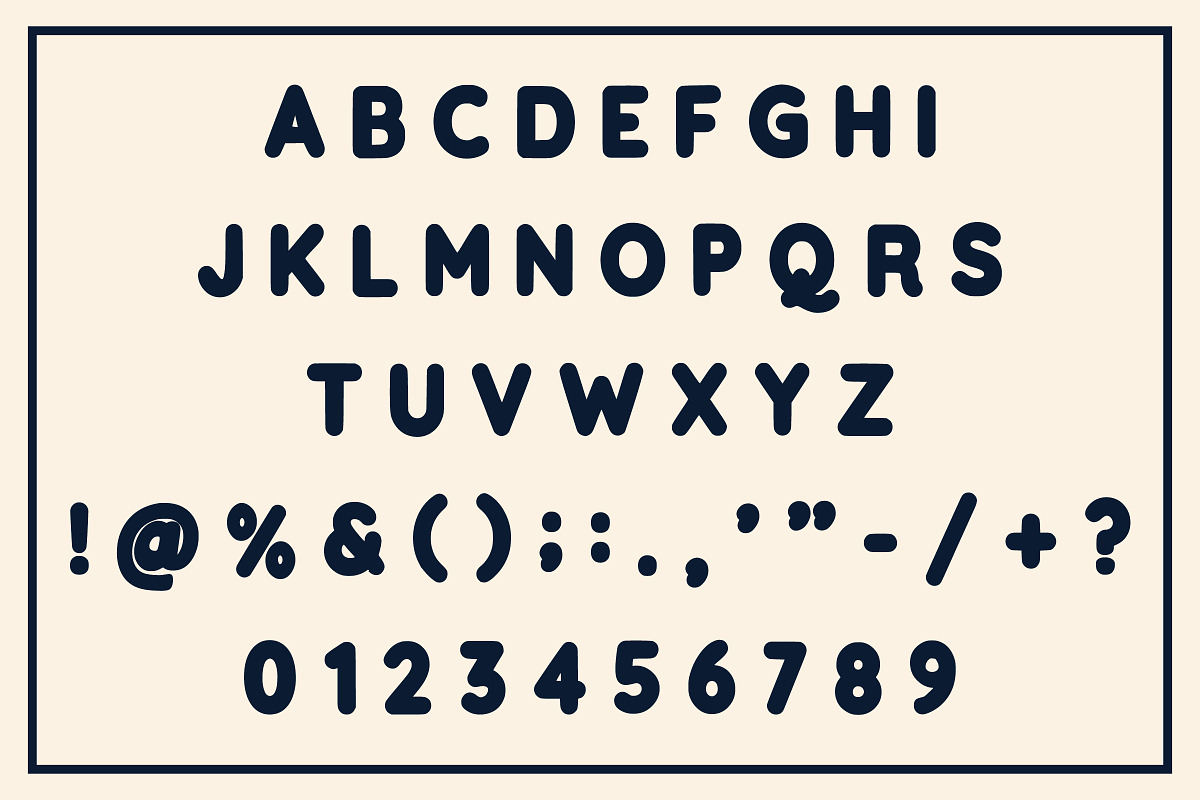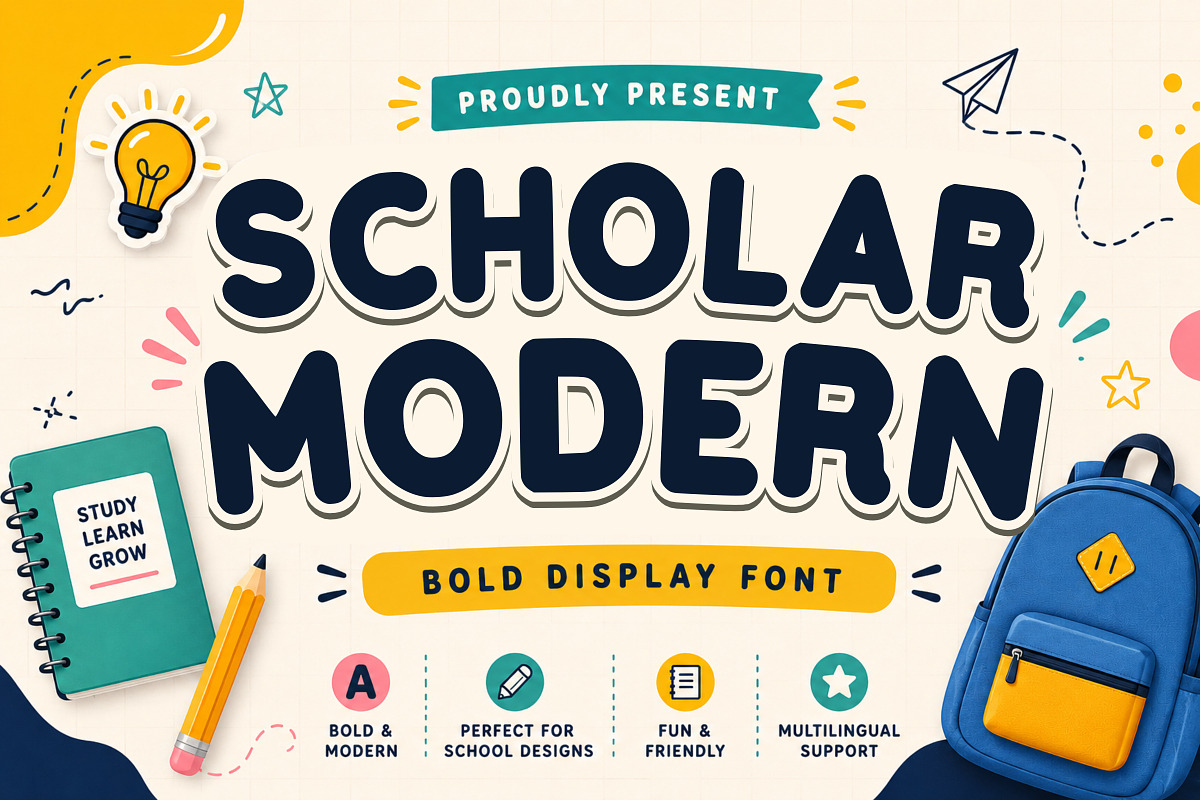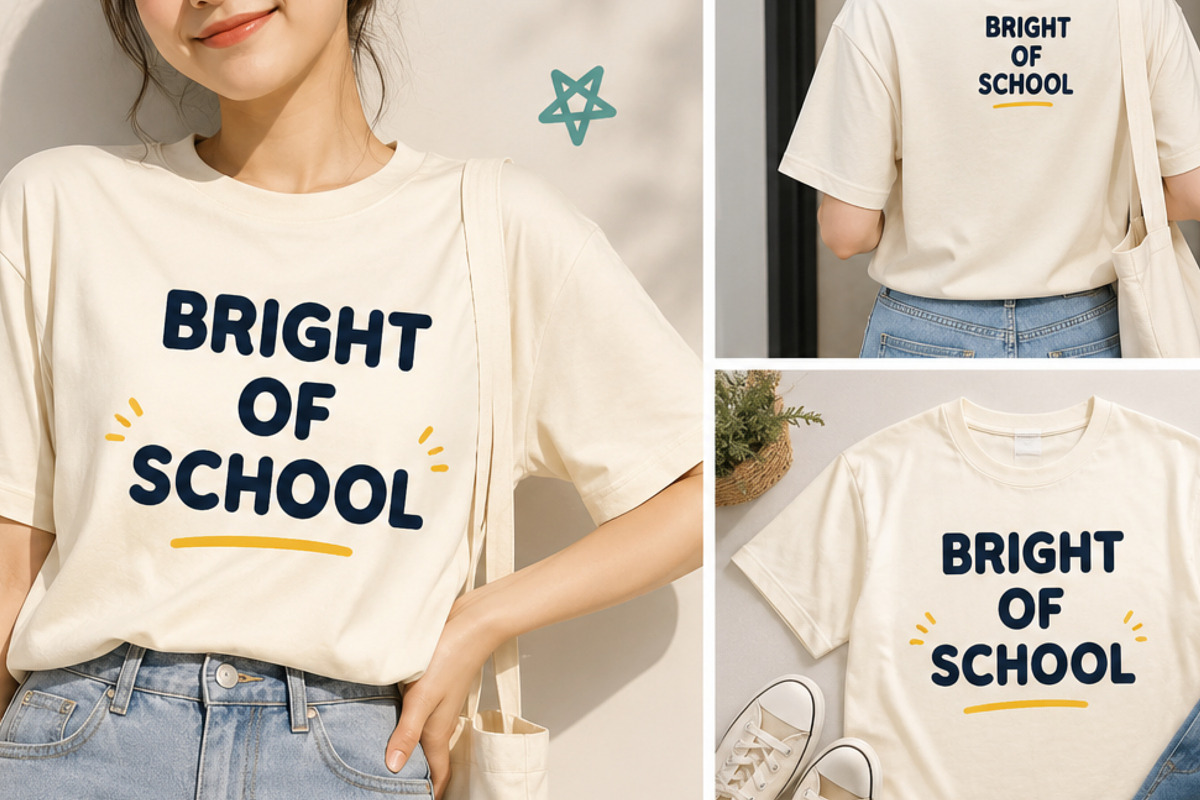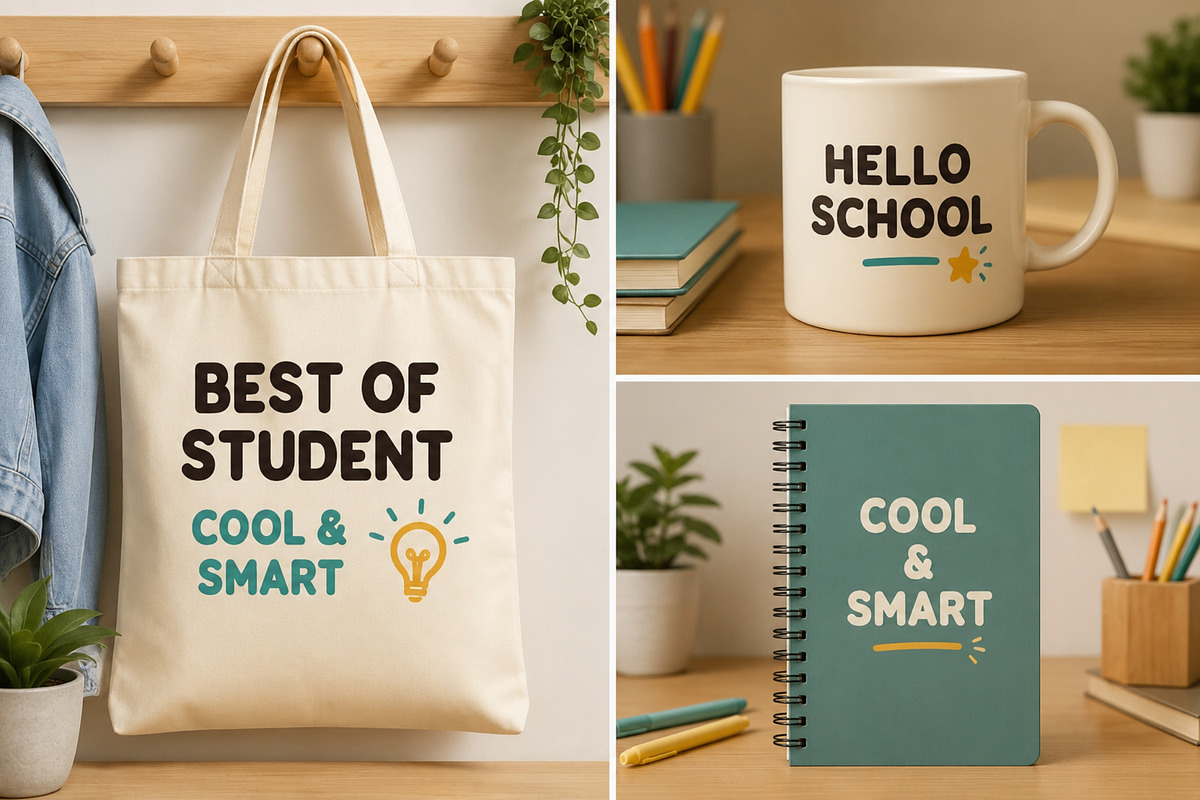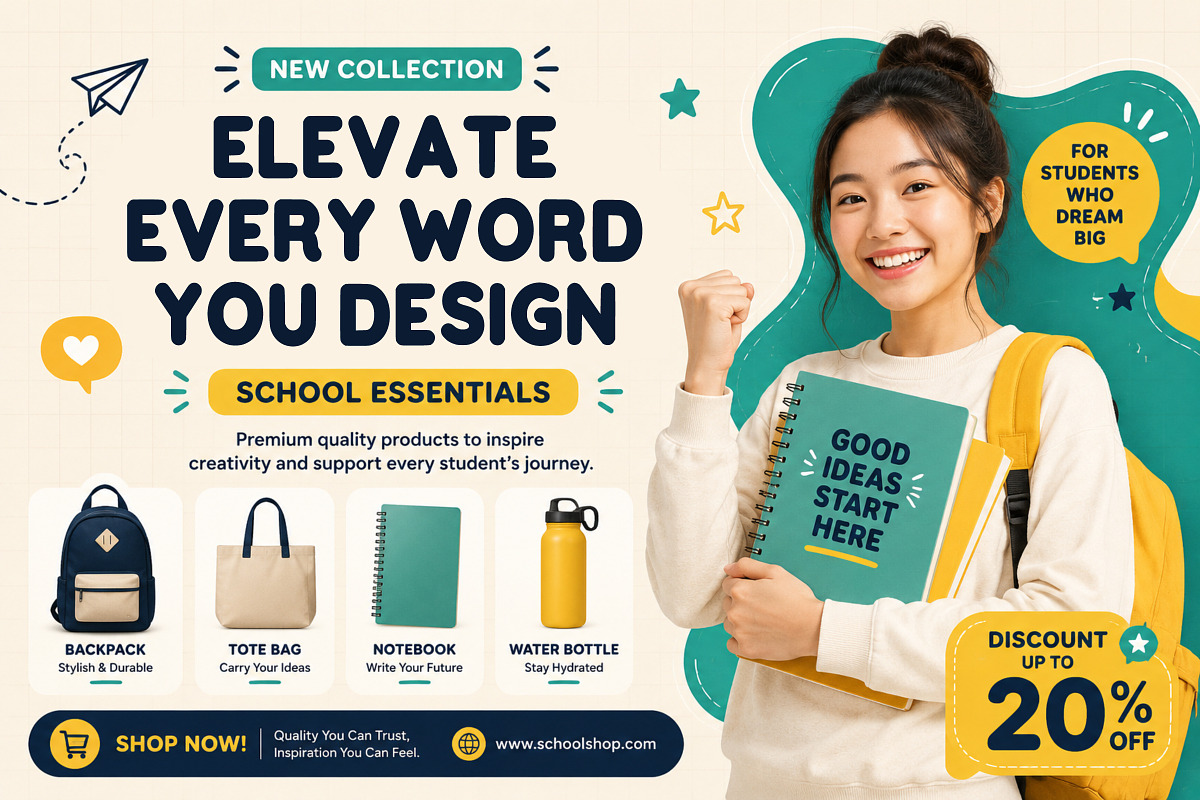
Scholar Modern
Scholar Modern is a bold display font featuring soft rounded corners and a clean geometric structure that creates a friendly, modern, and highly readable appearance. Designed to stand out, this versatile typeface is ideal for educational themes, children’s products, branding, merchandise, and eye-catching headlines.
Its thick letterforms deliver excellent readability both in print and digital media, making it a great choice for logos, t-shirts, mugs, posters, stickers, notebooks, packaging, classroom decorations, social media graphics, YouTube thumbnails, and DIY craft projects.
Whether you’re creating back-to-school designs, fun branding, or modern typography projects, Scholar Modern provides a fresh, playful, and professional look.
Recommended For: > School Designs > Kids Branding > Logos > Posters > Book Covers > T-Shirts > Hoodies > Tote Bags > Stickers > Mugs > Packaging > Labels > Social Media > YouTube Thumbnails > Classroom Decor > Educational Materials > Birthday Invitations > DIY Crafts > Sublimation > Print on Demand